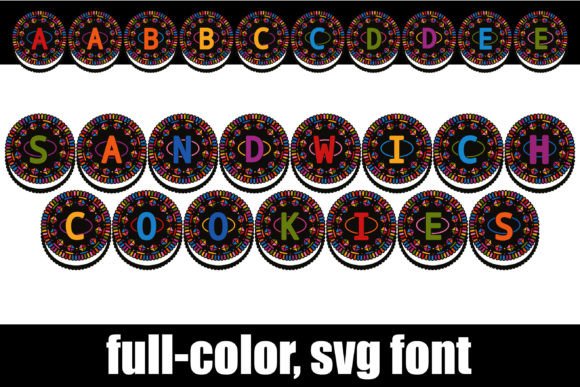
Feast your eyes on Sandwich Cookies Font, a delectable display font family that resembles a plate of freshly baked, colorful biscuits, ready to tantalize your designs. Step into a world of whimsical charm, where letters dance playfully like sprinkles on top of a sugary treat.
Indulge in a palette of vibrant hues, each color carefully crafted to spark joy and evoke a sense of warmth and comfort. Unleash your creativity and let Sandwich Cookies Font transform your designs into a visual feast.
Picture this: the irresistible charm of Sandwich Cookies Font gracing children's books, captivating their imaginations with its playful spirit. Imagine packaging adorned with its delightful characters, adding a touch of sweetness to every product. And envision social media graphics that pop with vibrancy, guaranteed to make your posts stand out in a crowded digital landscape.
Sandwich Cookies Font isn't just a font; it's an experience. A journey into a world where typography becomes art, where every letter tells a story, and where your designs take on a life of their own.
Don't resist the temptation any longer. Take a bite out of Sandwich Cookies Font today and elevate your designs to new heights of deliciousness. Let its playful spirit infuse your creations with a sprinkle of joy and a dash of whimsy.